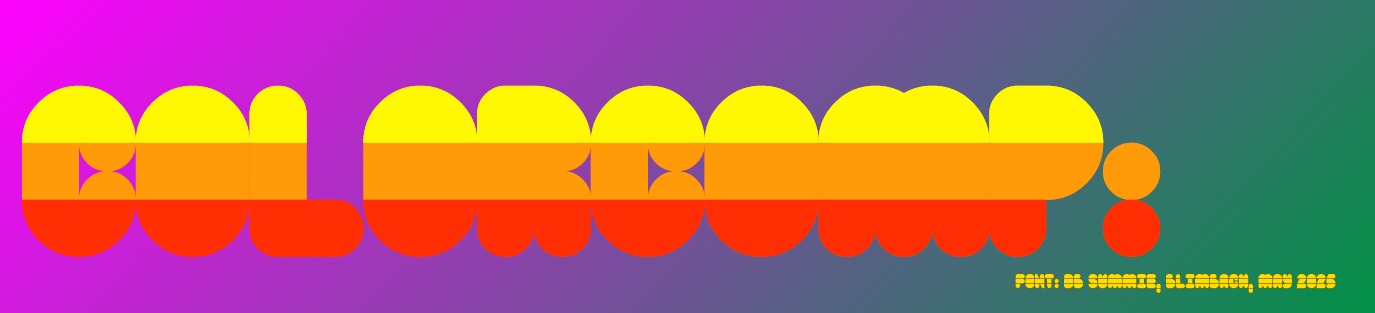
✏️ Last minute font ; )
this font looks simple but the colors give me a strict 70s feeling
Nice to see you in another comp, maestra. Pretty summertime font.
Nice retro design. It reminds me of Büro Destruct. 10/10